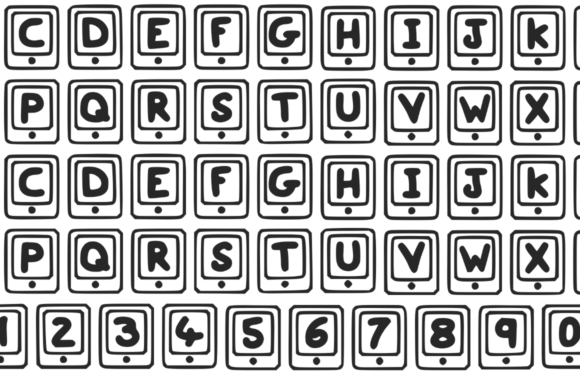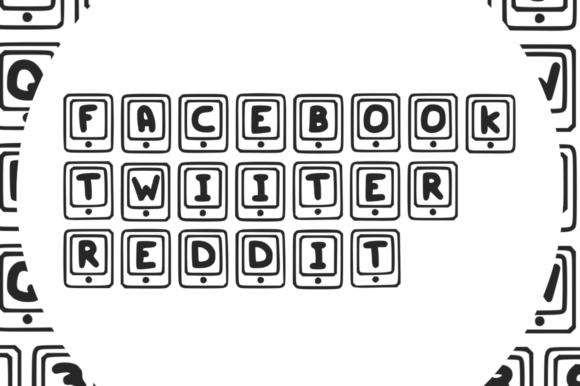
Fun Devices Tablet Font – Free Download
Introduction to Fun Devices Tablet Font
Fun Devices Tablet is a fun decorative font, featuring a range of devices, tablet, desktop and laptop to choose from.
No matter the topic, this font will be an incredible asset to your fontsโ library, as it has the potential to elevate any creation Part of a family of Fun Devices with an extra 2 devices.
Key Features of Fun Devices Tablet Font
Why Choose Fun Devices Tablet Font?